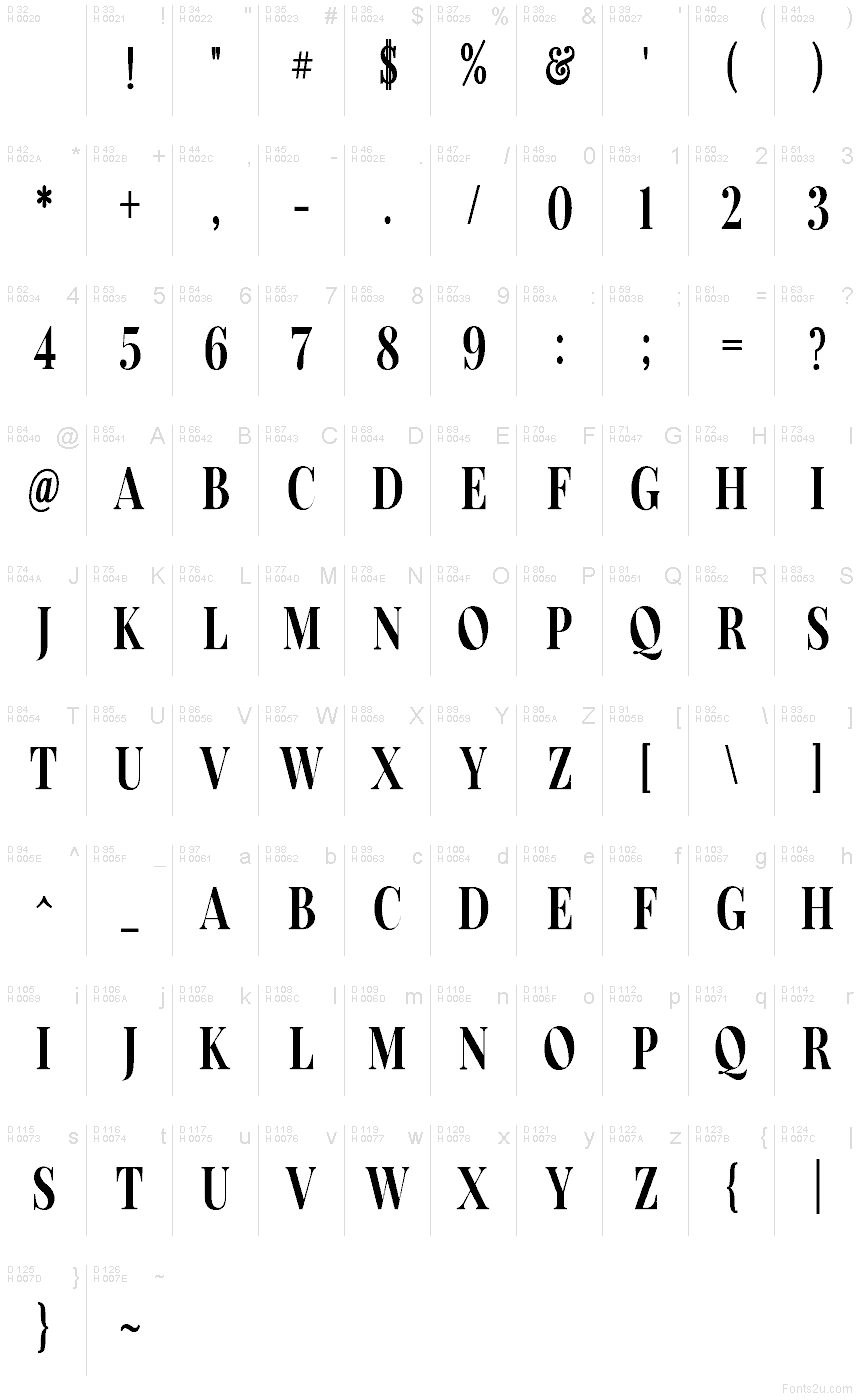
Rosean font by Graphicxell is a free modern serif typeface. Its drama comes from blade‑thin curves pressed against dense, inky stems, creating a crisp, editorial snap on the page. The letters stand tall and slightly condensed, with poised serifs that feel cut from obsidian-sleek, sharp, and stylish without fuss.
Using Rosean, headlines and wordmarks gain an instant fashion‑house sheen, making it a natural fit for magazines, beauty branding, luxury packaging, posters, book jackets, and invitations. The tight rhythm reads bold at large sizes; add a touch of letter‑spacing for extra breath. This free font pairs beautifully with a clean grotesk sans for body copy to keep the focus on its sculpted forms.